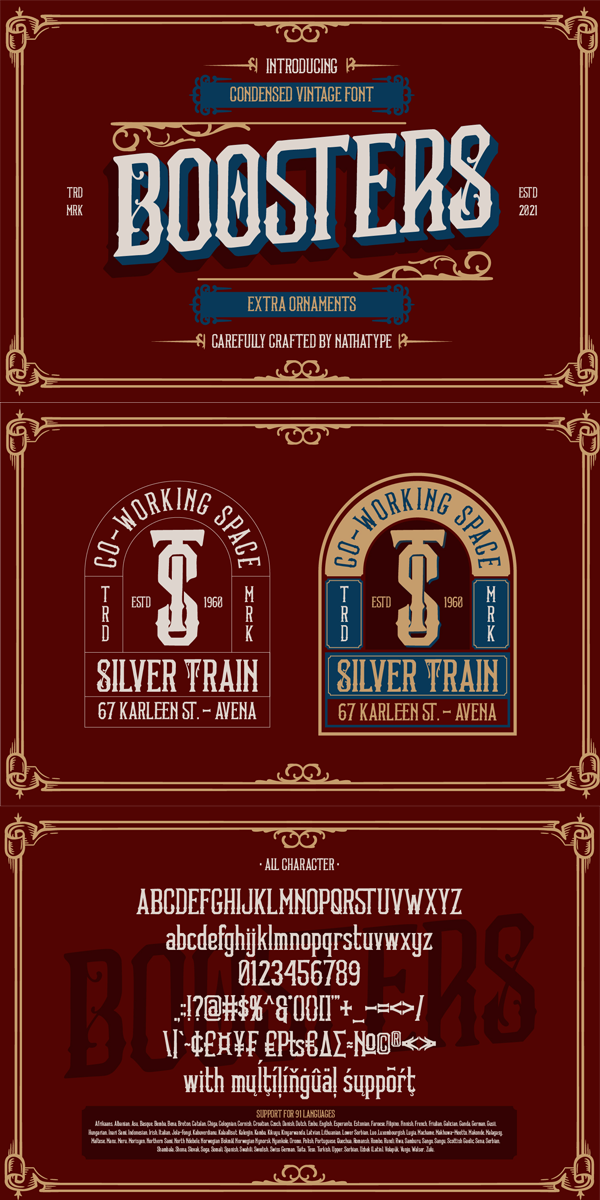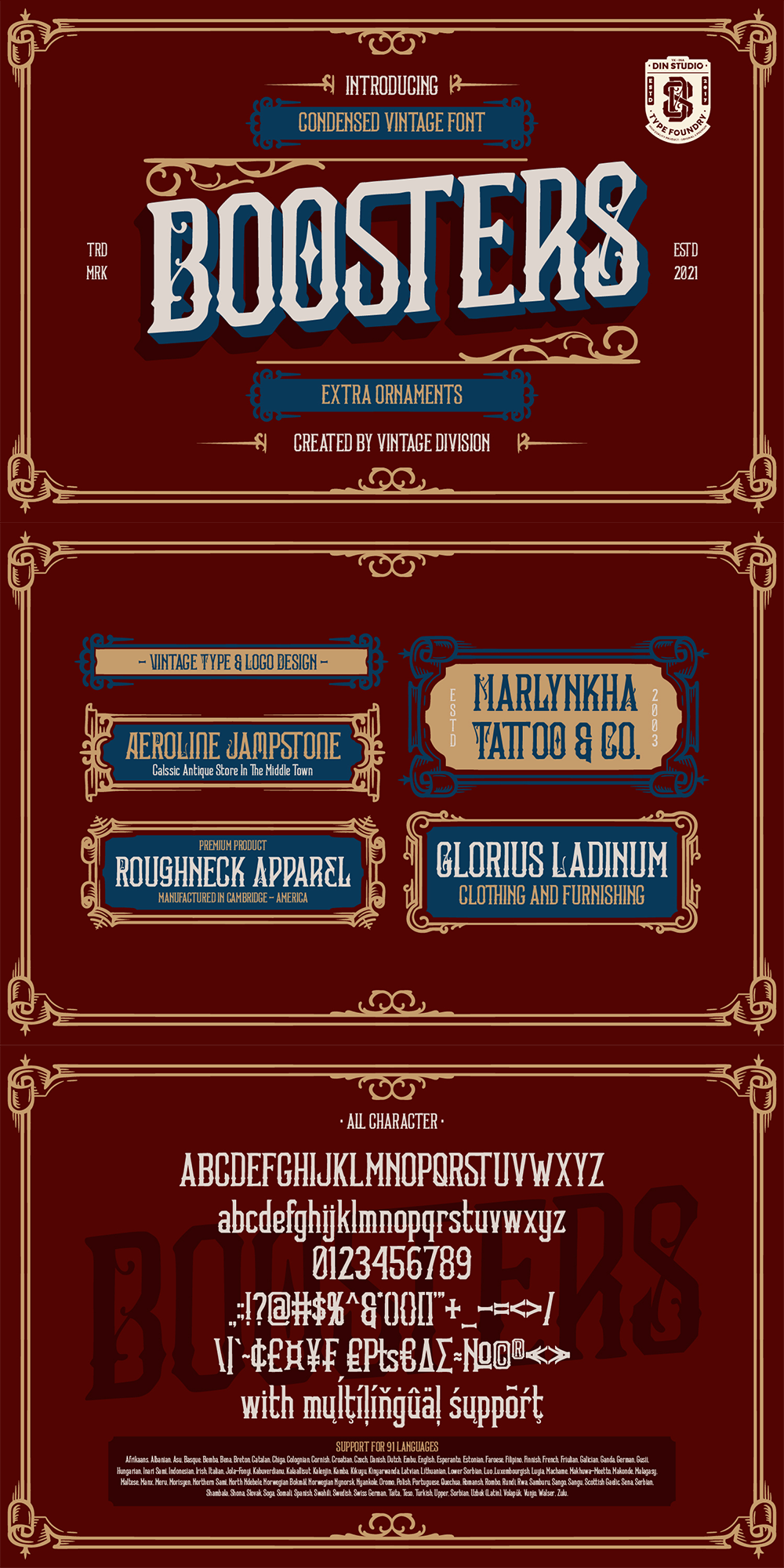
Boosters vintage font is a typeface that is made all characters in uppercase. An excellent choice to add the right amount of retro touch. This typeface with artistic style looks very interesting for loads of different projects and promotions. A vintage font great all-in-one package for your logo, book cover, poster, t-shirt, branding, and advertisement needs.
The font includes a full set of character from a-z, A-Z for uppercase, ligature as well as numbers, and punctuation set.
-Bonus Ornament
Afrikaans, Albanian, Asu, Basque, Bemba, Bena Breton, Catalan, Chiga, Colognian, Cornish, Croatian, Czech, Danish, Dutch, English, Estonian, Faroese, Filipino, Finnish, French, Friulian, Galician, Ganda, German, Gusii, Hungarian, Inari Sami, Indonesian, Irish, Italian, Jola-Fonyi, Kabuverdianu, Kalenjin, Kinyarwanda, Latvian, Lithuanian, Lower Sorbian, Luo, Luxembourgish, Luyia, Machame, Makhuwa-Meetto, Makonde, Malagasy, Maltese, Manx, Morisyen, Northern Sami, North Ndebele, Norwegian Bokmål, Norwegian Nynorsk, Nyankole, Oromo, Polish, Portuguese, Quechua, Romansh, Rombo, Rundi, Rwa, Samburu, Sango, Sangu, Scottish Gaelic, Sena, Serbian, Shambala, Shona, Slovak, Soga, Somali, Spanish, Swahili, Swedish, Swiss German, Taita, Teso, Turkish, Upper Sorbian, Uzbek (Latin), Volapük, Vunjo, Zulu